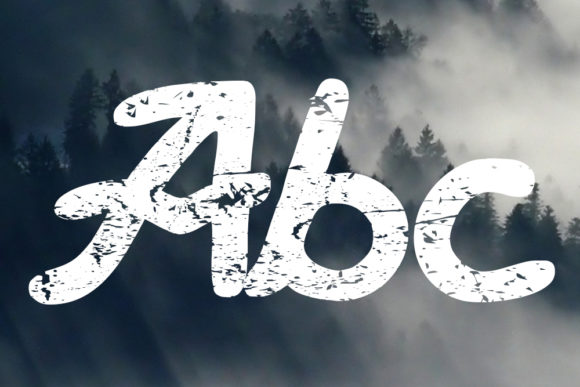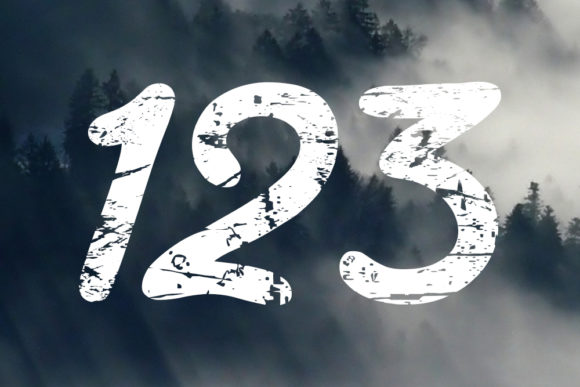
Haziness Font
About Haziness Font
Haziness is an awesome grungy hand-written font that comes in two versions: regular and book. It is great for posters, banners, headlines, and much more.